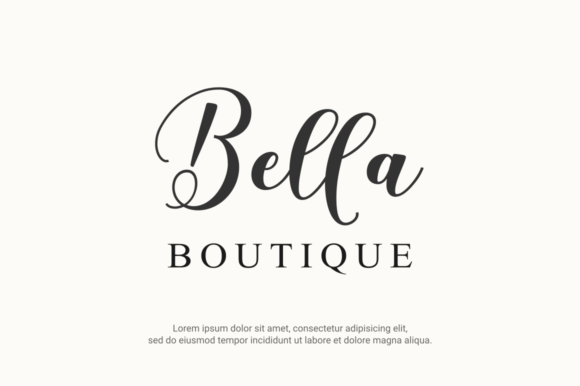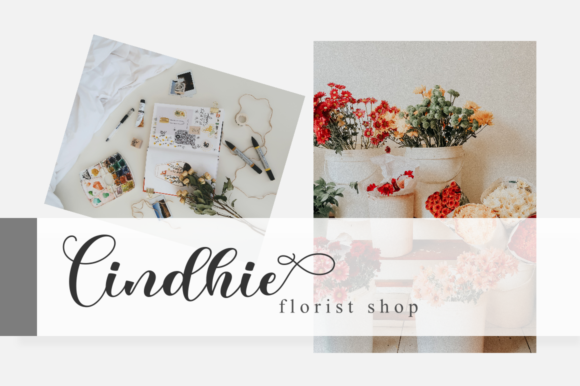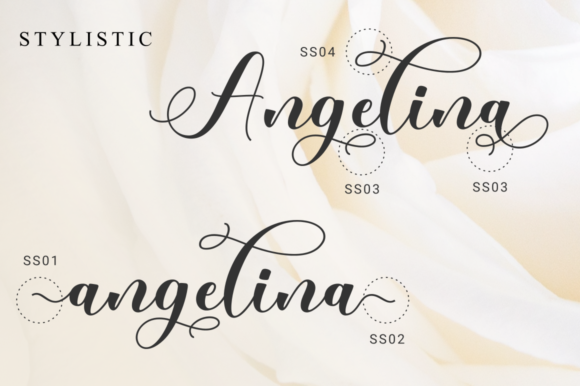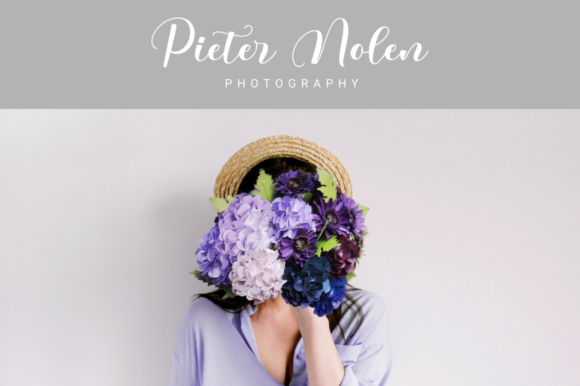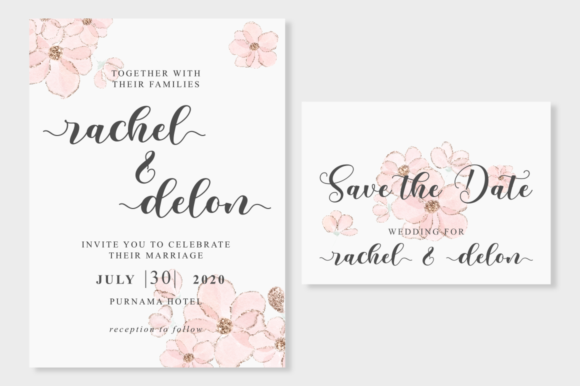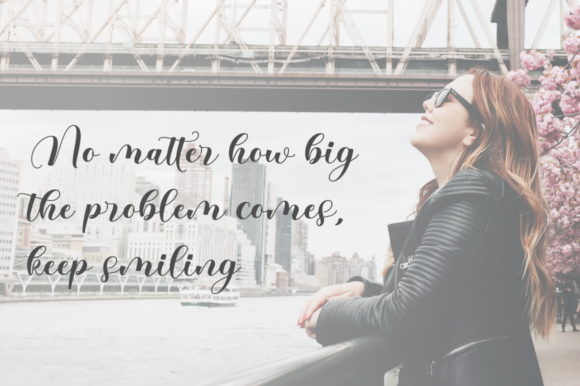
The Elegant Baley Font: A Designer’s New Best Friend
I’ll never forget the time I was working on a wedding invitation project, and my client asked for a font that was elegant, flowing, and utterly romantic. I scoured the internet, tried out dozens of fonts, but nothing seemed quite right. That was until I stumbled upon the stunning Baley Font. ✨
As soon as I saw it, I knew I had found the one. The beautiful, handwritten curves and swashes won my heart, and I couldn’t wait to share it with my client. In this article, I’ll share with you why I’m obsessed with the Baley Font, its features, and how to make the most of it in your designs.
- ✨ Elegant and flowing handwritten style that’s perfect for romantic designs
- 💕 Beautiful on a variety of designs, from wedding invitations to greeting cards and logos
- 🎉 Highly customizable with OpenType features and stylistic alternates
While the Baley Font is an amazing addition to any design project, there are a few things to keep in mind: 🤔
- ⚠️ Some users may find the font a bit too ornate for certain projects
- ⚠️ Not suitable for body text or long blocks of text due to its decorative nature
The Baley Font was created by a talented designer who’s passionate about typography and handwriting. The font is inspired by the beauty of handwritten scripts and the elegance of traditional calligraphy. 💫
Imagine a designer who spent hours perfecting the curves and swashes of the Baley Font, pouring their heart and soul into creating a truly unique and beautiful typeface. That’s the story behind the Baley Font! 🎨
Q: What is the Baley Font best used for?
A: The Baley Font is perfect for designs that require a personalized, elegant touch, such as wedding invitations, thank you cards, greeting cards, and logos.
Q: Is the Baley Font easy to use?
Q: Is the Baley Font suitable for body text?
A: No, the Baley Font is a decorative font that’s best used for headings, titles, and short blocks of text. It’s not suitable for body text or long blocks of text due to its ornate nature.